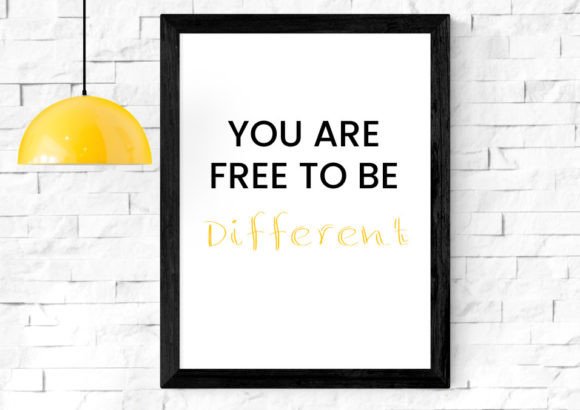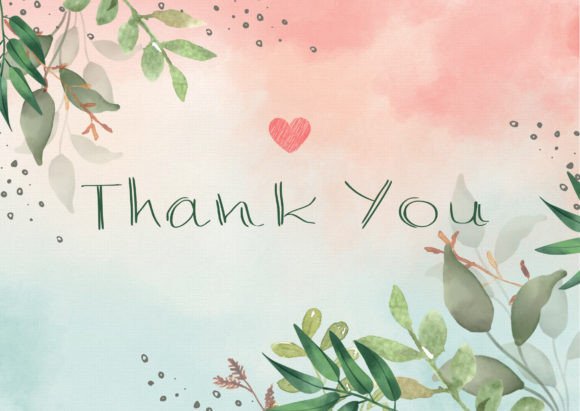
Introducing Double Line Font: The Ultimate Handwritten Font for Creative Projects
Are you tired of using the same old fonts for your design projects? Look no further! Double Line Font is a fun and friendly handwritten font that’s perfect for adding a personal touch to your creations. With its incredibly versatile design, this casual font is suitable for a wide range of design ideas, making it a must-have for designers and crafters alike.
What is Double Line Font?
Double Line Font is a unique and stylish handwritten font that’s designed to add a touch of personality to your designs. Its double-line design gives it a distinctive look that’s both fun and modern. The font is carefully crafted to be highly legible, making it perfect for use in a variety of design projects, from digital media to print materials.
Key Features of Double Line Font
- Handwritten Design: Double Line Font features a beautiful handwritten design that’s perfect for adding a personal touch to your creations.
- Double-Line Design: The font’s double-line design gives it a unique and stylish look that’s sure to stand out.
- Highly Legible: The font is carefully crafted to be highly legible, making it perfect for use in a variety of design projects.
- Versatile: Double Line Font is incredibly versatile, making it suitable for a wide range of design ideas.
Uses of Double Line Font
Double Line Font is perfect for a wide range of design projects, including:
- Digital Media: Use Double Line Font to add a personal touch to your social media graphics, blog posts, and website designs.
- Print Materials: The font is perfect for use in print materials, such as brochures, flyers, and business cards.
- Crafting Projects: Double Line Font is a great addition to any crafter’s toolkit, perfect for use in handmade cards, scrapbooking, and other paper crafting projects.
- Branding and Packaging: Use the font to create unique and eye-catching branding and packaging designs.
Benefits of Using Double Line Font
There are many benefits to using Double Line Font in your design projects, including:
- Adds Personality: The font adds a personal touch to your designs, helping to make them stand out.
- Increases Legibility: The font’s highly legible design ensures that your text is easy to read.
- Versatile: Double Line Font is incredibly versatile, making it suitable for a wide range of design ideas.
Tips for Using Double Line Font
Here are a few tips for getting the most out of Double Line Font:
- Experiment with Colors: Try pairing the font with different colors to add visual interest to your designs.
- Mix and Match: Experiment with mixing and matching Double Line Font with other fonts to create unique and eye-catching designs.
- Pay Attention to Size: Make sure to adjust the font size to ensure that your text is easy to read.
| Font Name | Double Line Font |
| Author | Afaf Al-Barwani |
Double Line Font is a fun and friendly handwritten font that’s perfect for adding a personal touch to your design projects. With its incredibly versatile design, highly legible text, and easy-to-use format, this font is a must-have for designers and crafters alike. Whether you’re working on digital media, print materials, crafting projects, or branding and packaging designs, Double Line Font is the perfect choice.